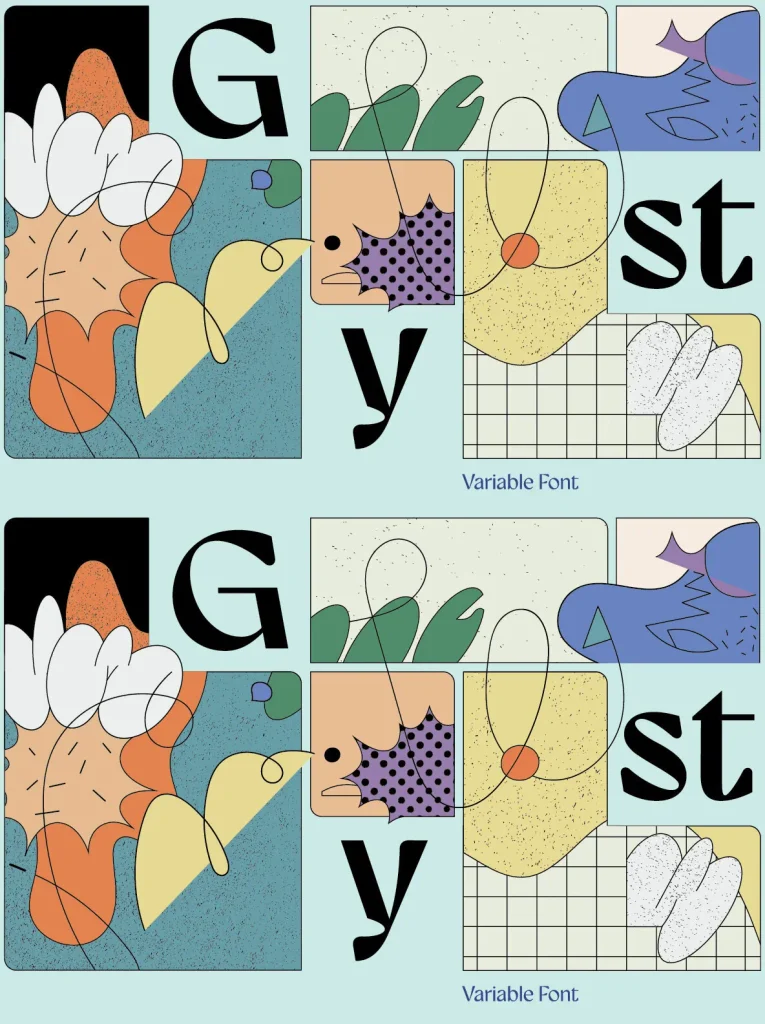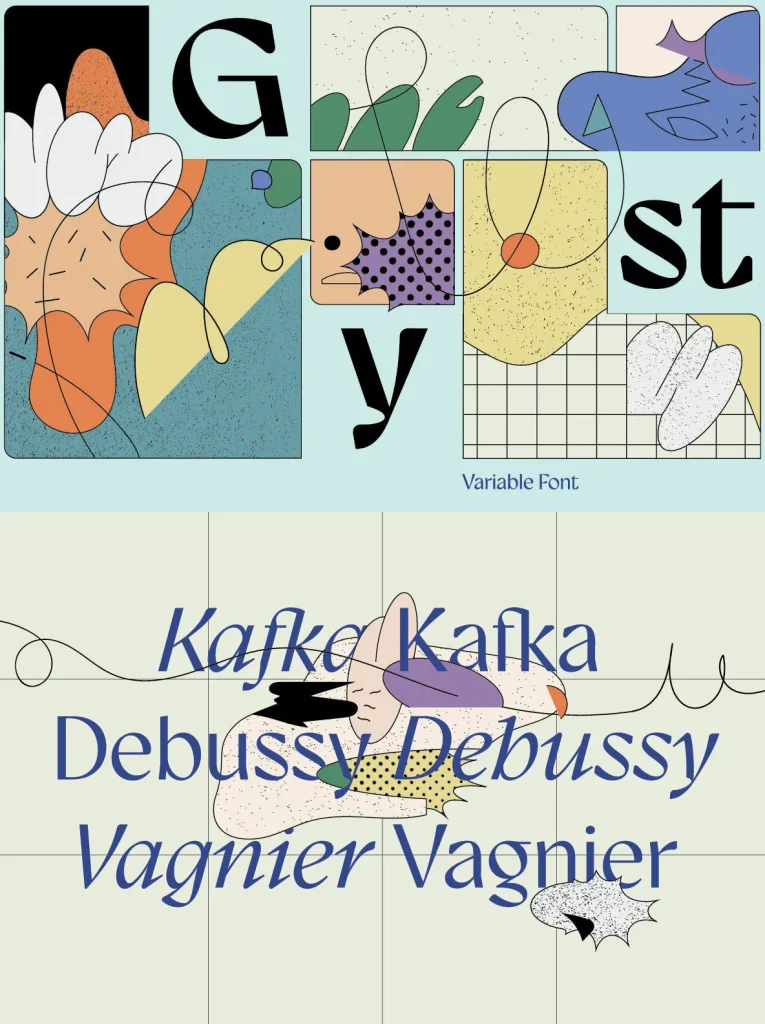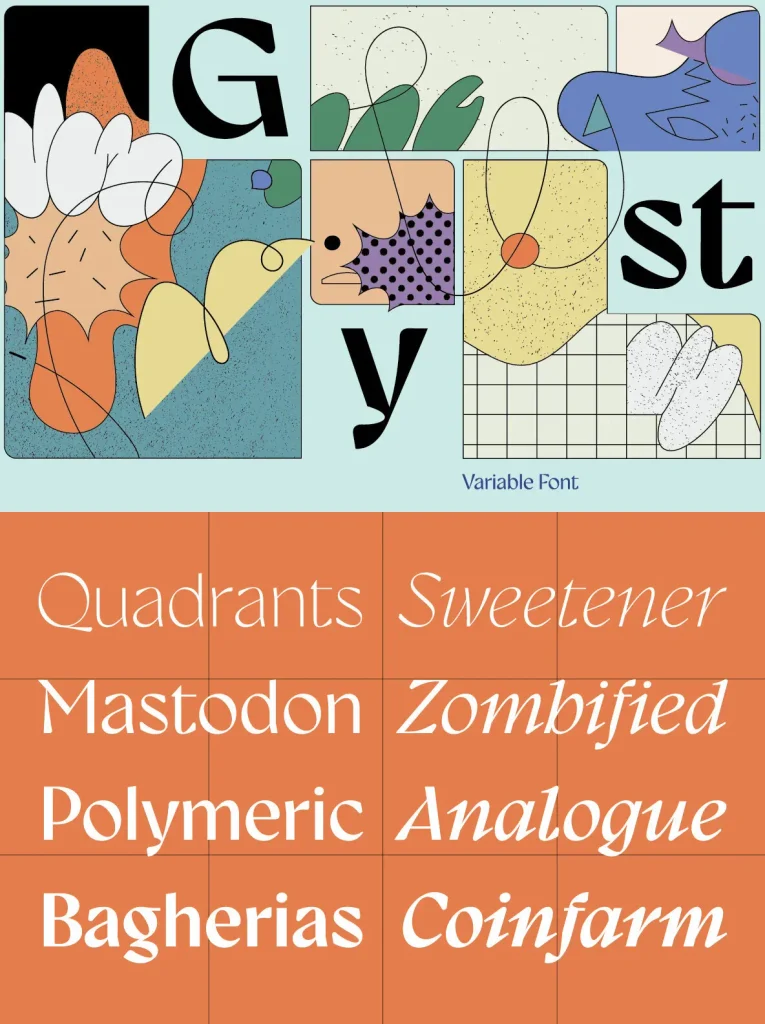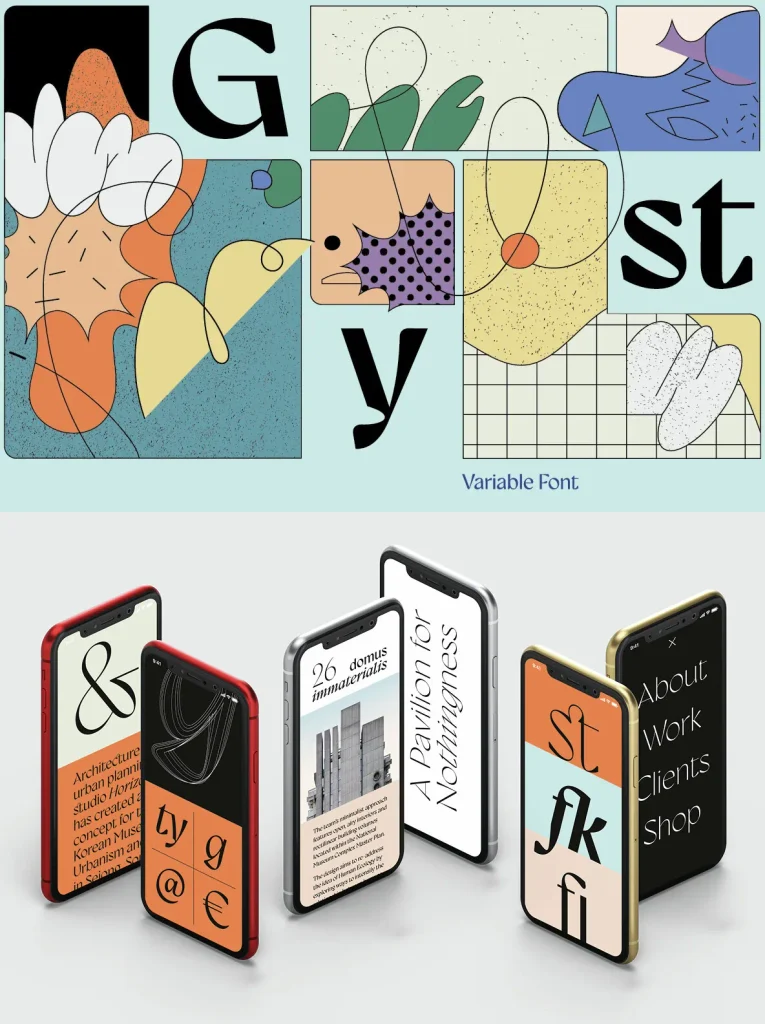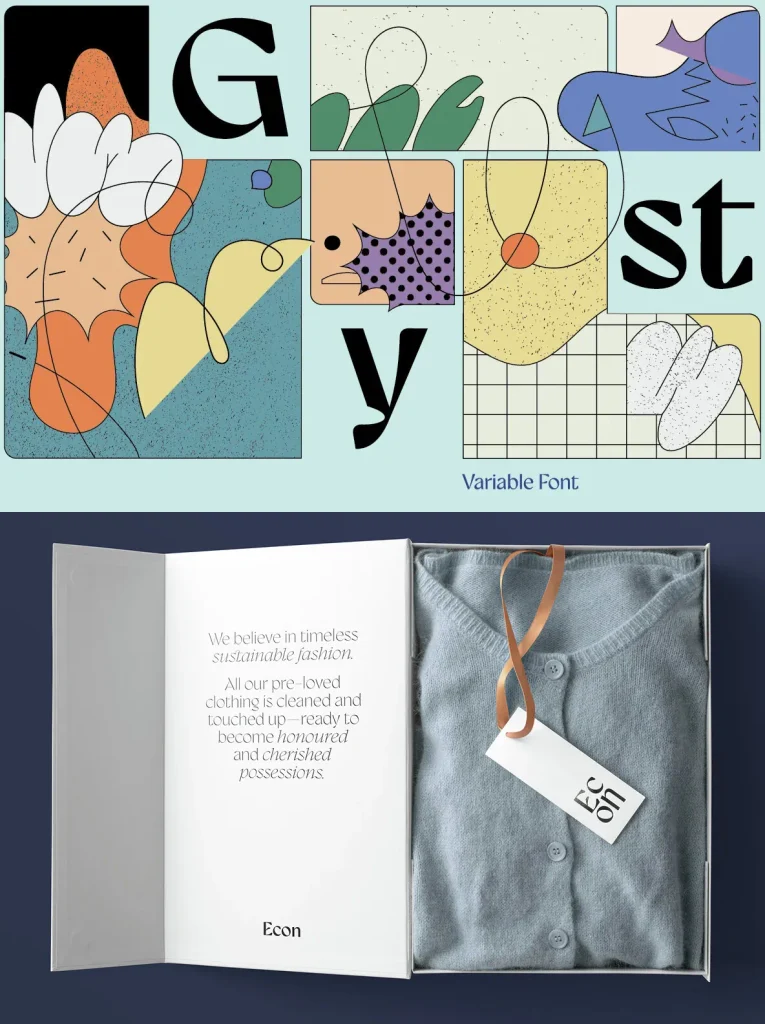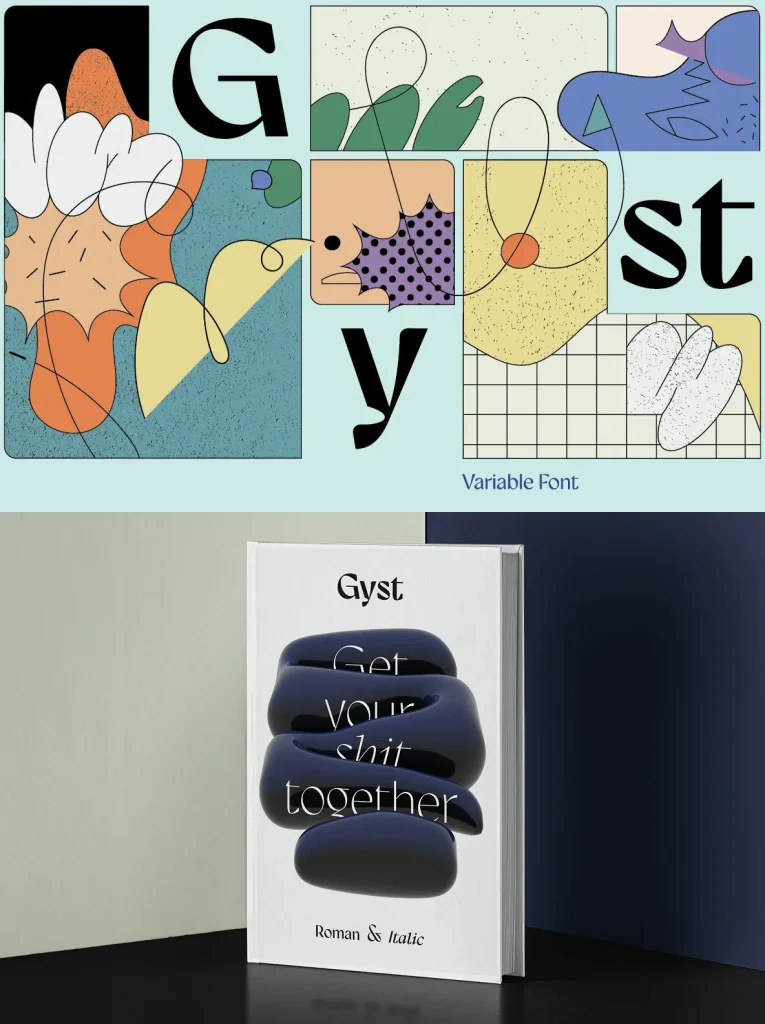
Gyst Variable Font
Gyst Variable: Neo-humanist contrast, lively italics
A neo-humanist sans serif typeface by phospho. blends Grotesque and Antiqua principles with care. Classic uprights set a clear, modern tone, while the true italics introduce serifs and a distinct, cursive voice. The result moves from humanistic sans serif clarity to a cursive serif expression, giving typographers a wide stylistic arc within one family.
Contrasting strokes meet razor-edged terminals, balancing grace with a sharper, more decisive finish. Gyst Variable works for body text as well as display use, and the autonomous cursive posture plays well against the upright in almost any setting—editorial layouts, brand systems, and expressive typographic moments.
Gyst Variable ships as a single axis TTF Variable Font. It includes a whole lot of Alternates and Ligatures, making it practical for nuanced typography and detailed art direction.